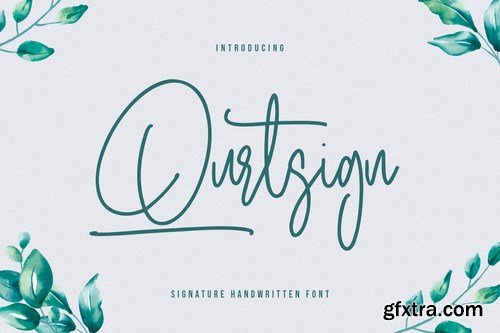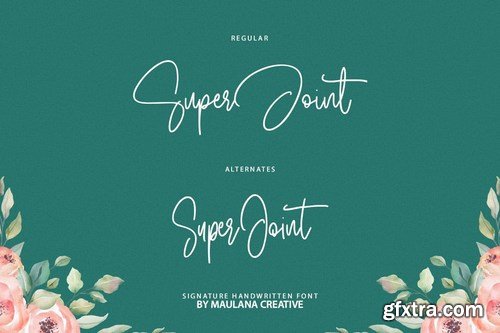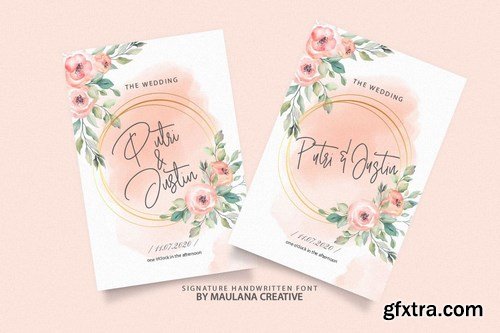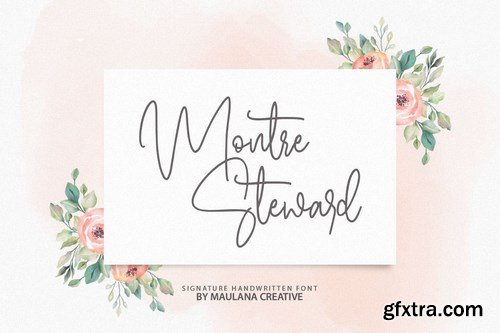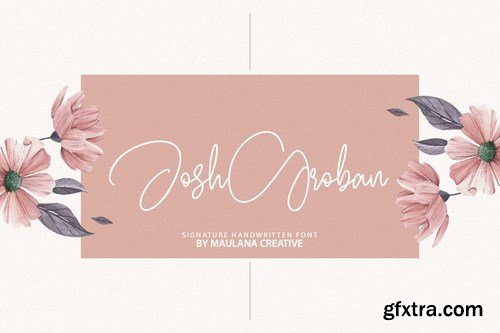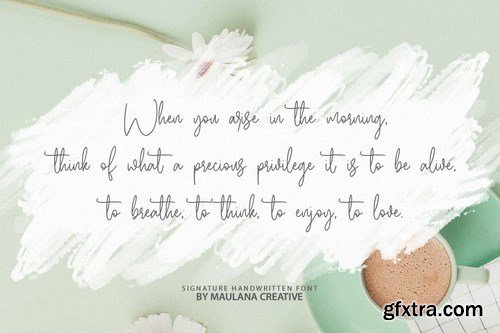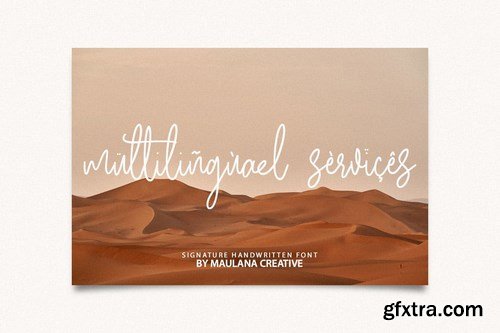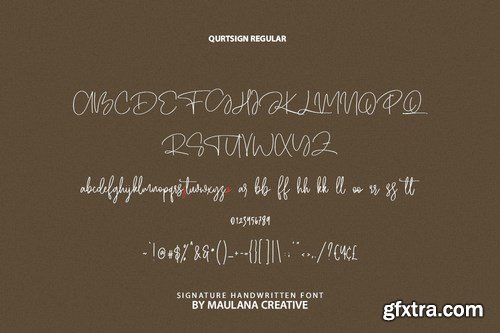
Give your designs an authentic handcrafted feel. “ Qurtsign” is perfectly suited to signature, stationery, logo, typography quotes, magazine or book cover, website header, clothing, branding, packaging design and more.